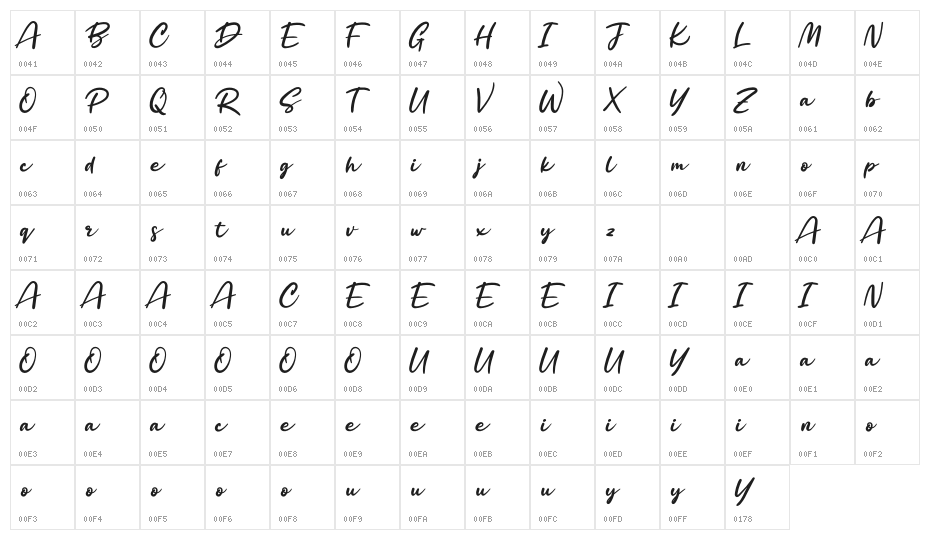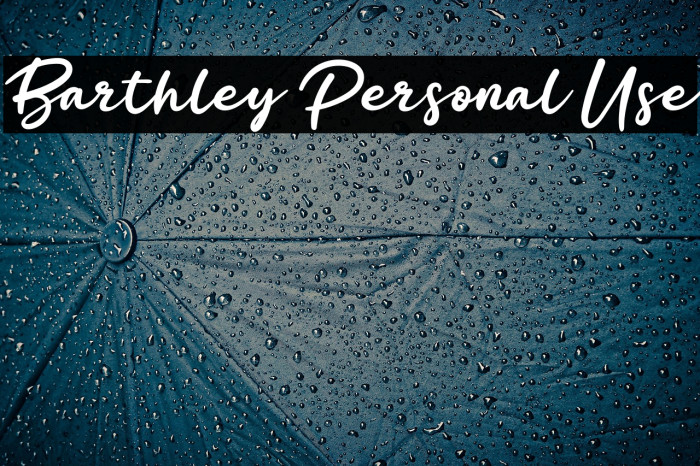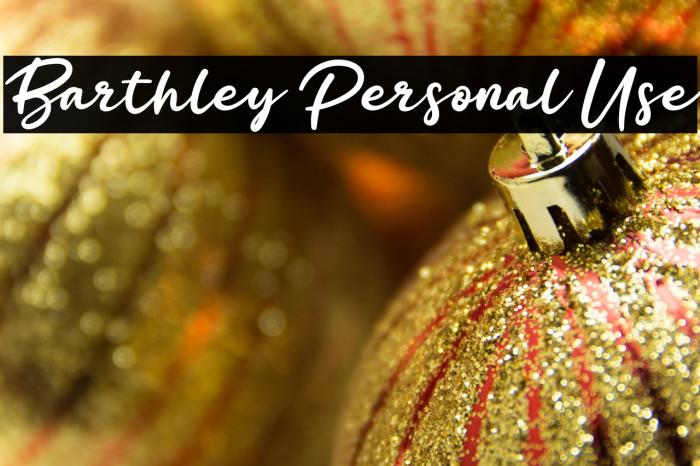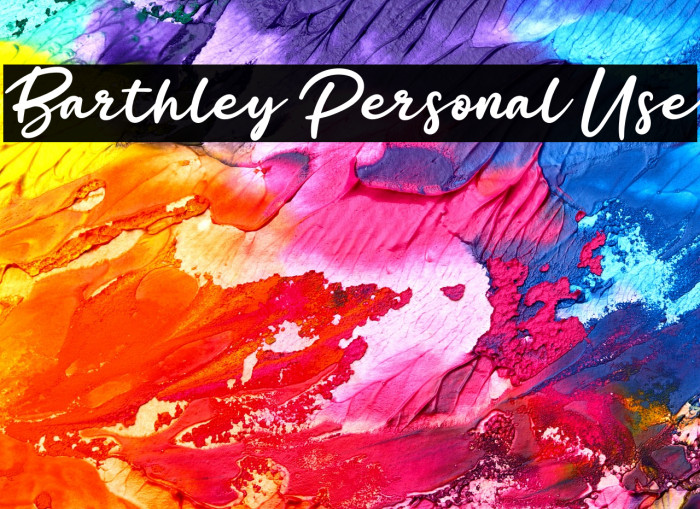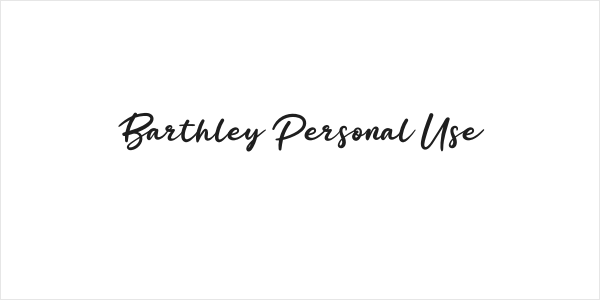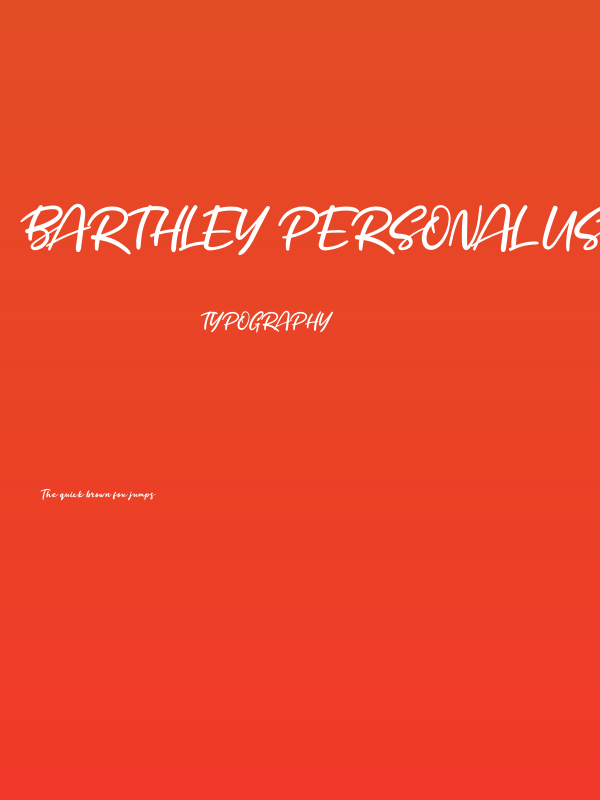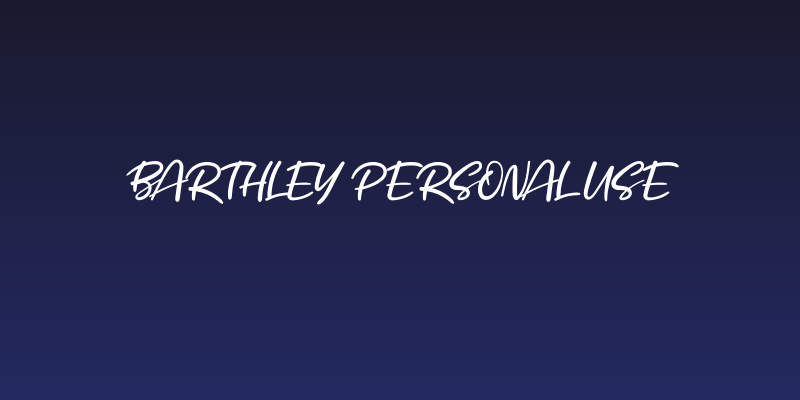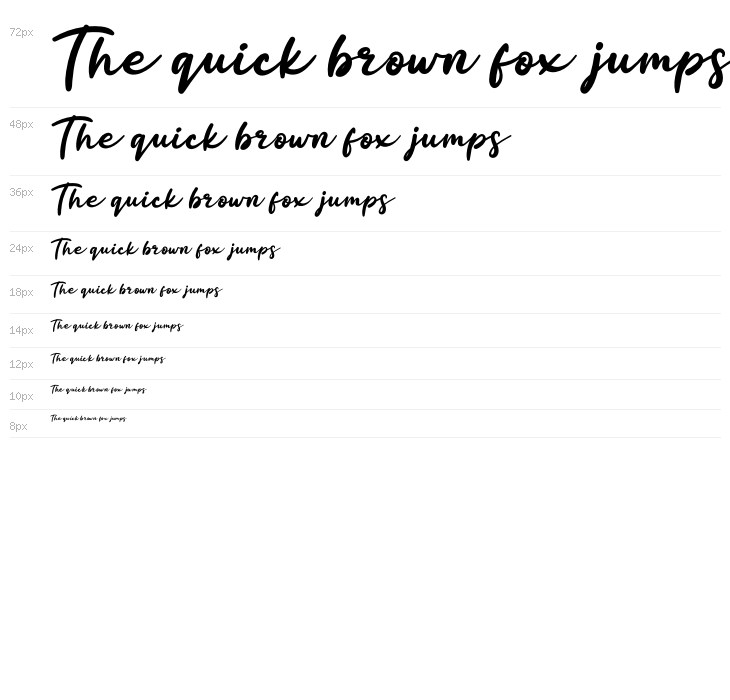
Barthley Personal Use Font
Barthley Personal Use Description
This font features a flowing, cursive style with a modern touch. The uppercase letters are elegantly elongated with smooth curves and a slight slant, giving them a dynamic and sophisticated appearance. The lowercase letters maintain a consistent flow, with rounded edges and a natural, handwritten feel. The font exudes a sense of elegance and personal touch, making it ideal for projects that require a personal or artistic flair. The absence of special characters suggests a focus on simplicity and elegance, while the consistent stroke width provides a clean and polished look.